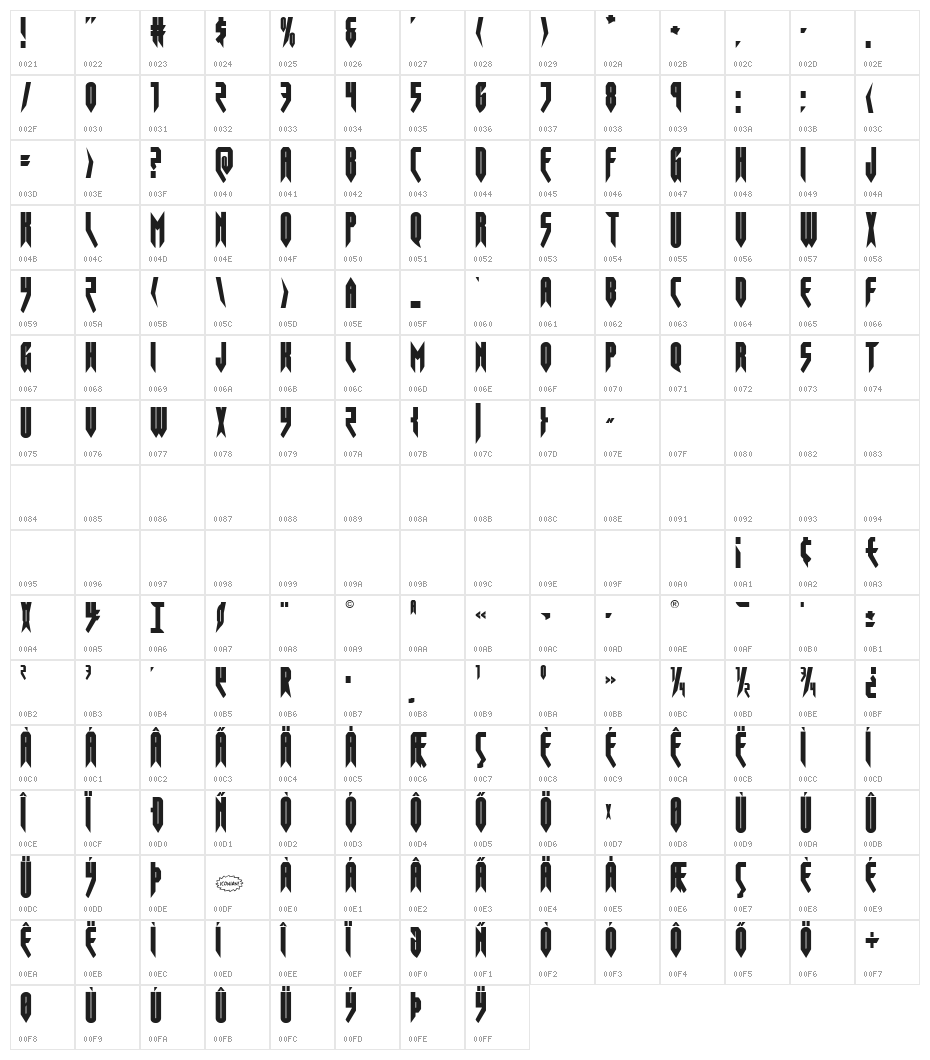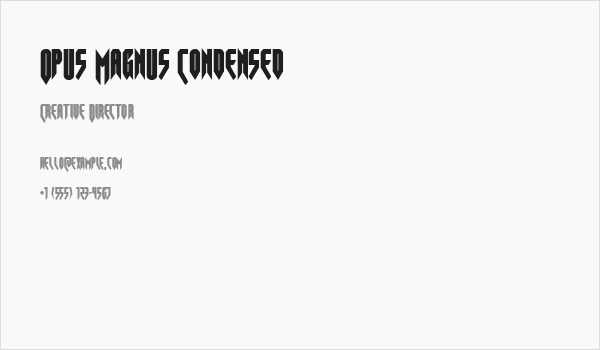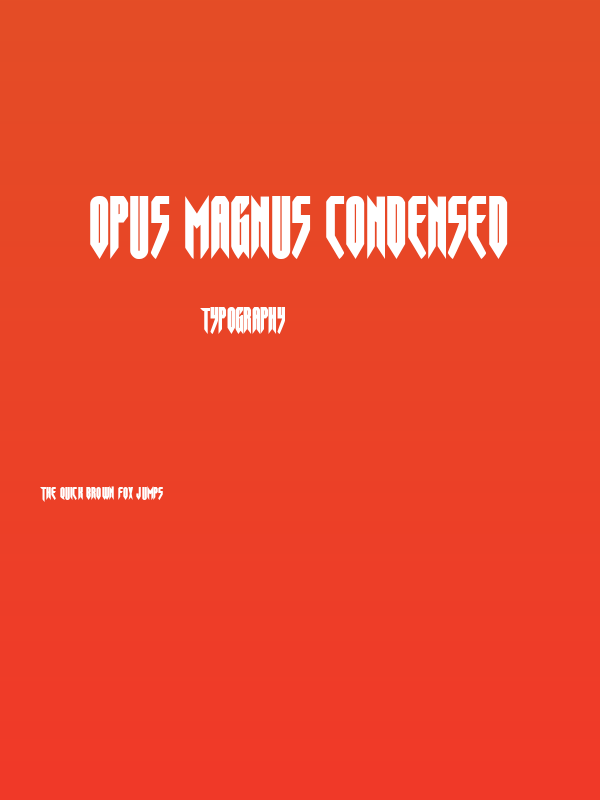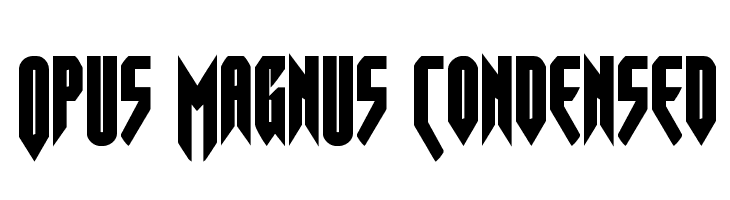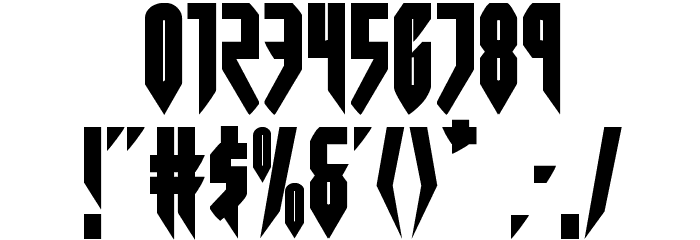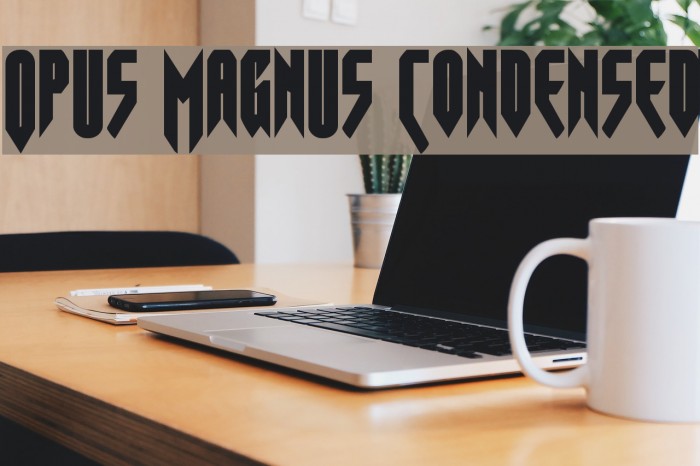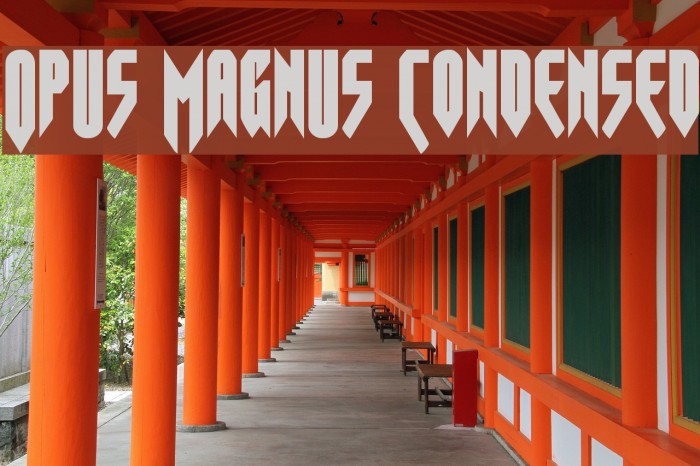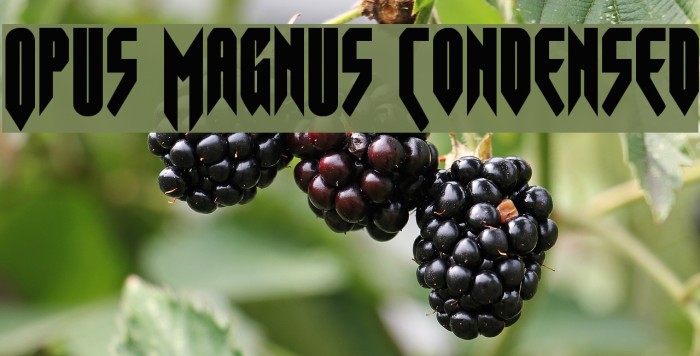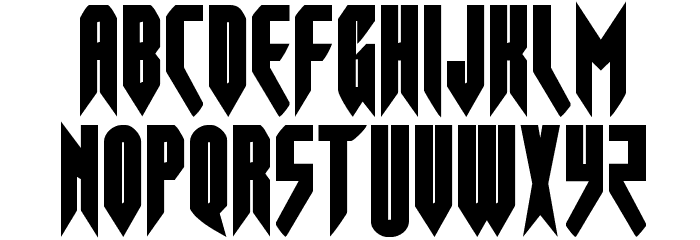
Opus Magnus Condensed Font
Opus Magnus Condensed Description
This font features a bold and striking design with sharp, angular edges and a condensed structure. The characters are tightly spaced, creating a compact and impactful appearance. The uppercase letters are particularly dominant, with a geometric style that emphasizes vertical lines and pointed serifs. The numbers and special characters maintain the same boldness and angularity, ensuring consistency across all glyphs. This font's unique style makes it stand out, ideal for projects that require a strong visual presence.